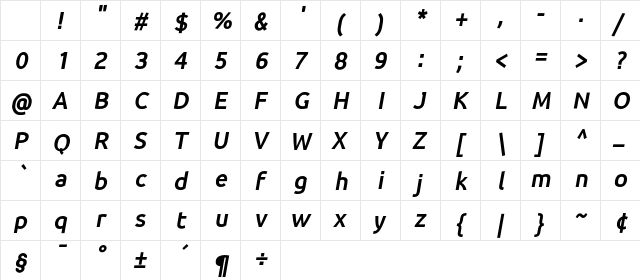
Complete Earthbound Condensed Bold Italic glyph index. Displaying only characters natively supported by Earthbound Condensed Bold Italic font.
Earthbound is a composed and adaptable typeface that performs quietly and consistently across a wide range of design contexts. The slanted form adds forward momentum and visual energy. Its bold stroke weight gives it real presence on the page. Its narrow stance lets it pack a punch even in space-constrained designs.
Pro Tip: Use Earthbound for emphasis, pull quotes, and subheadings where its slanted energy can add rhythm to the layout.